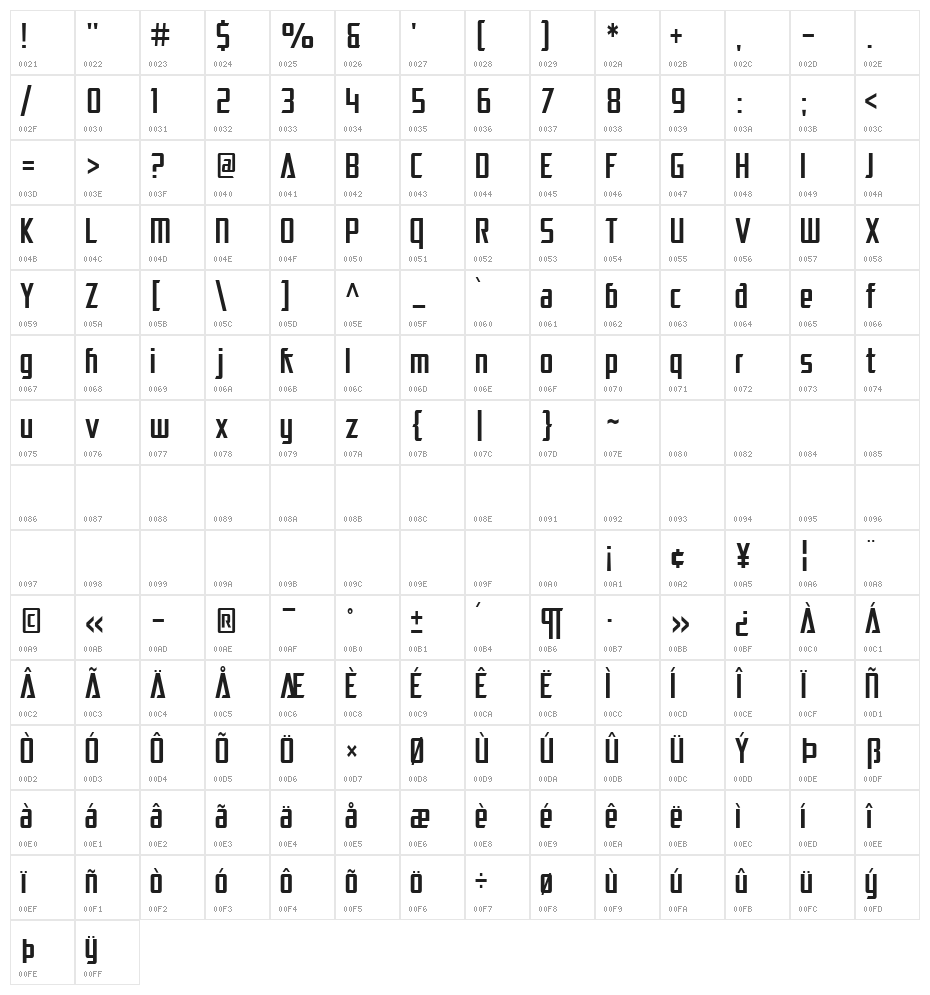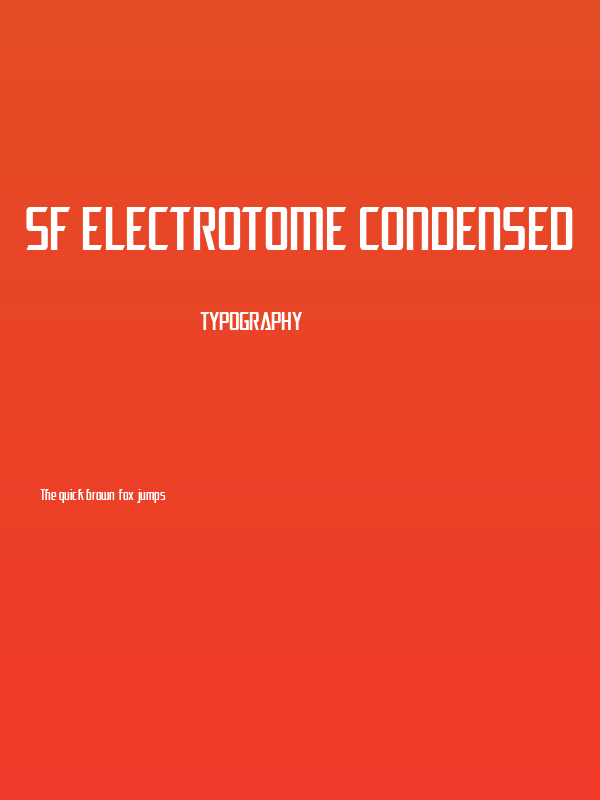
SF Electrotome Condensed Font
SF Electrotome Condensed Description
This font features a futuristic and geometric design with a condensed structure, giving it a sleek and modern appearance. The characters are uniform in height, with sharp angles and clean lines that create a sense of precision and efficiency. The uppercase letters are bold and commanding, while the lowercase letters maintain a consistent style that complements the overall aesthetic. The numerals are distinct and easy to read, making them suitable for digital displays. Special characters are crafted with the same attention to detail, ensuring a cohesive look across all elements. This font is ideal for projects that require a contemporary and technical feel.
| Use Case | Headlines, Logos, Digital displays |
| Proposed Projects | Ideal for technology branding, digital interfaces, and modern advertising campaigns. |